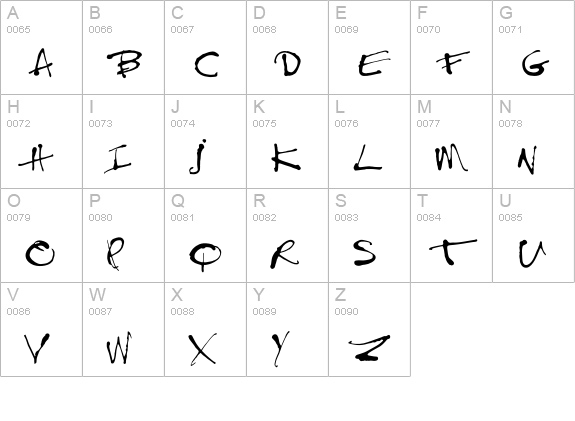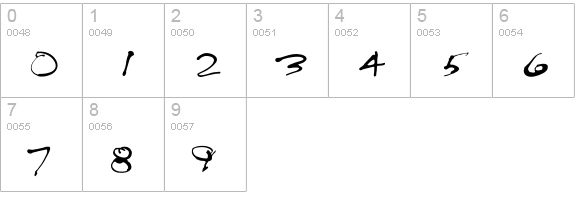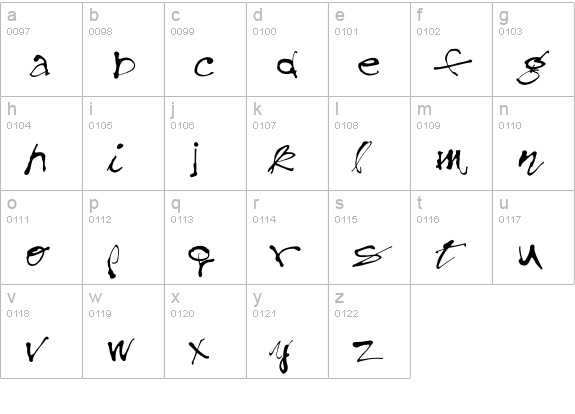
Treefrog Font Details
Introducing Treefrog font, a captivating typeface that effortlessly combines elegance and playfulness. This unique font is designed with meticulous attention to detail, ensuring every curve and line is crafted to perfection. Its fluid, organic shapes resemble the intricate patterns found in nature, making it a perfect choice for projects that require a touch of whimsy and sophistication. With its versatile nature, Treefrog font is suitable for a wide range of design purposes. Whether you're working on a logo, branding materials, invitations, or editorial designs, this font will bring a refreshing and lively vibe to your creations. Its clean and legible letterforms make it accessible to readers of all ages, while its subtle quirks and artistic touches add a touch of individuality to your designs. One of the most appealing aspects of Treefrog font is that it is freely available to download at FontsMarket.com. This means that designers and enthusiasts alike can explore the endless possibilities of this font without any limitations. The convenience of being able to access such a stunning typeface with just a few clicks is truly a gift for designers seeking high-quality resources. Treefrog font's extensive character set includes uppercase and lowercase letters, numerals, punctuation marks, and a variety of special characters. This comprehensive range ensures that you have all the tools you need to bring your visions to life. Additionally, the font is available in multiple weights and styles, allowing you to experiment and create unique combinations that suit your specific project requirements. Embrace the charm and versatility of Treefrog font in your next design endeavor. Whether you're aiming to create a striking headline, a captivating poster, or a visually stunning website, this font will effortlessly elevate your work to new heights. So don't miss out on the opportunity to add this enchanting typeface to your font collection. Visit FontsMarket.com today to download Treefrog font for free and embark on a design journey filled with creativity and imagination.